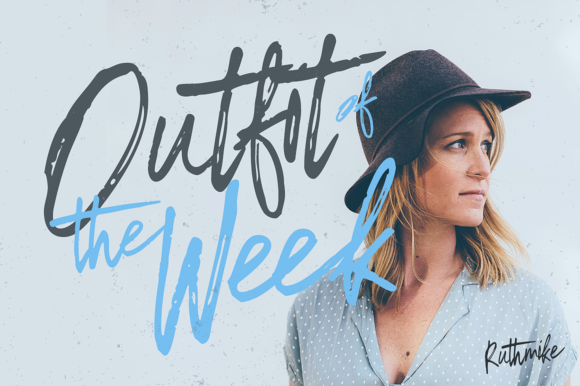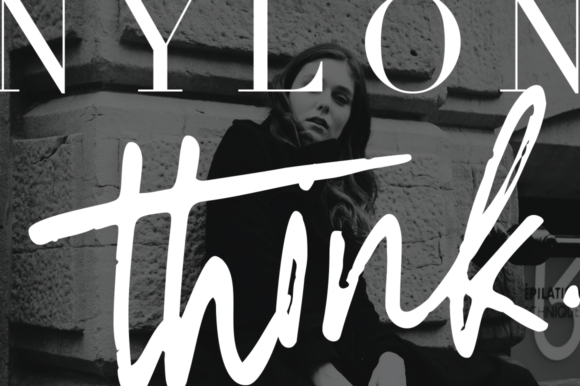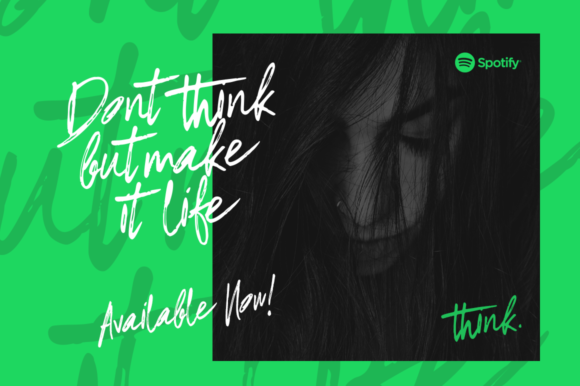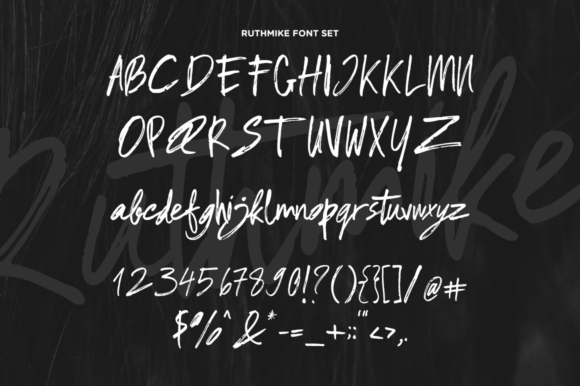
Ruthmike Font
About Ruthmike Font
Ruthmike is a casual and beautiful script font. It has a brush feel that makes it perfect for posters, labels, packaging and much more!